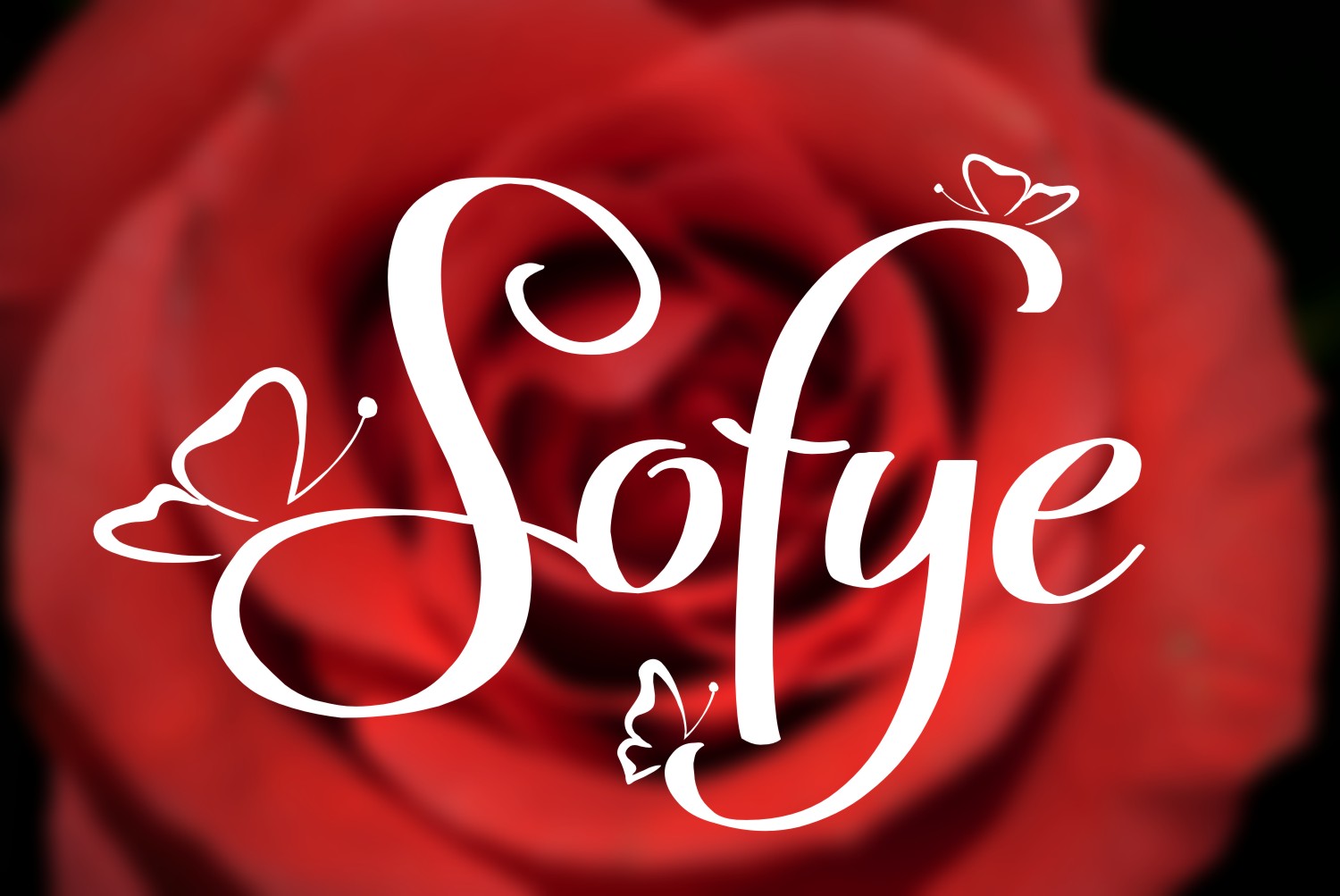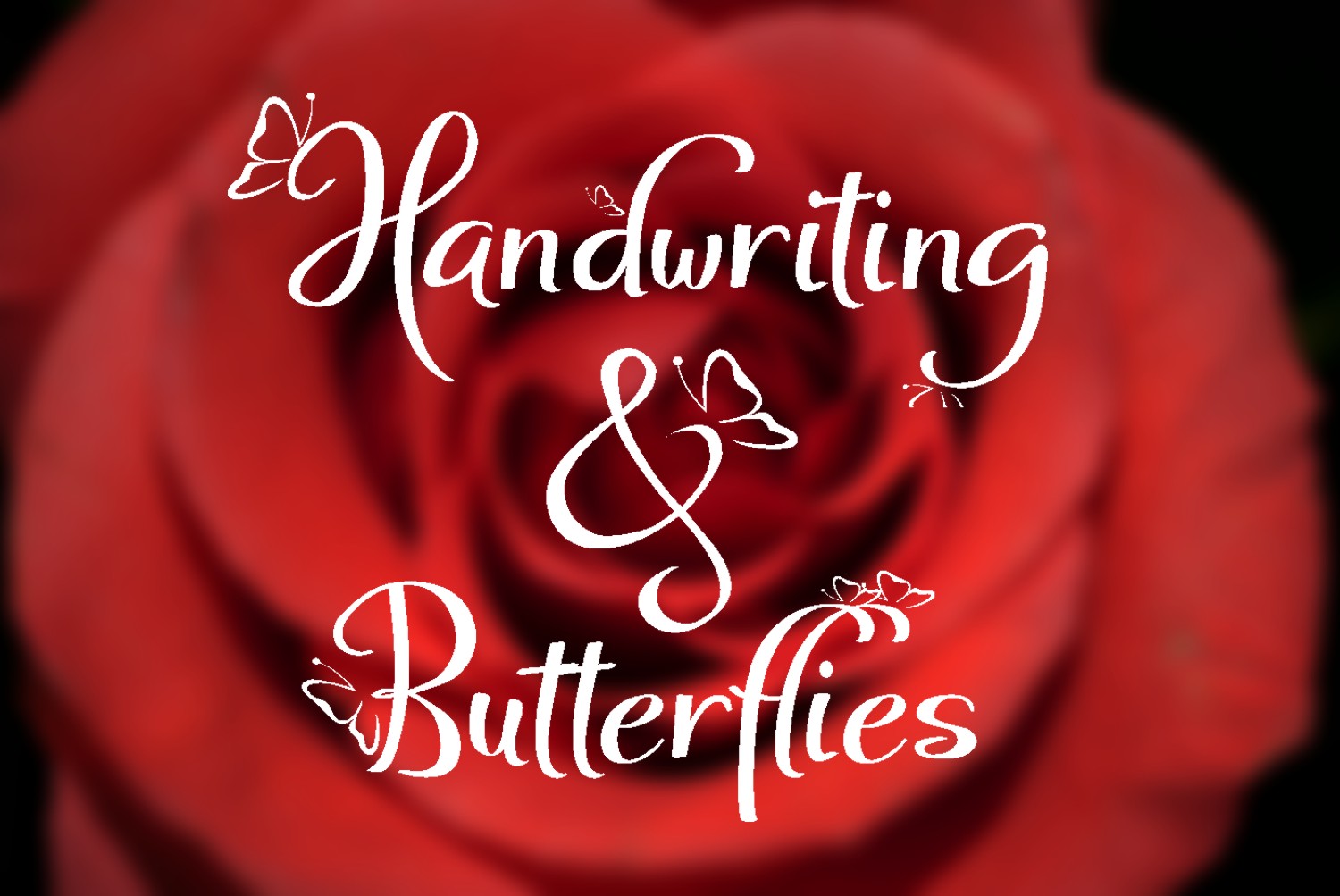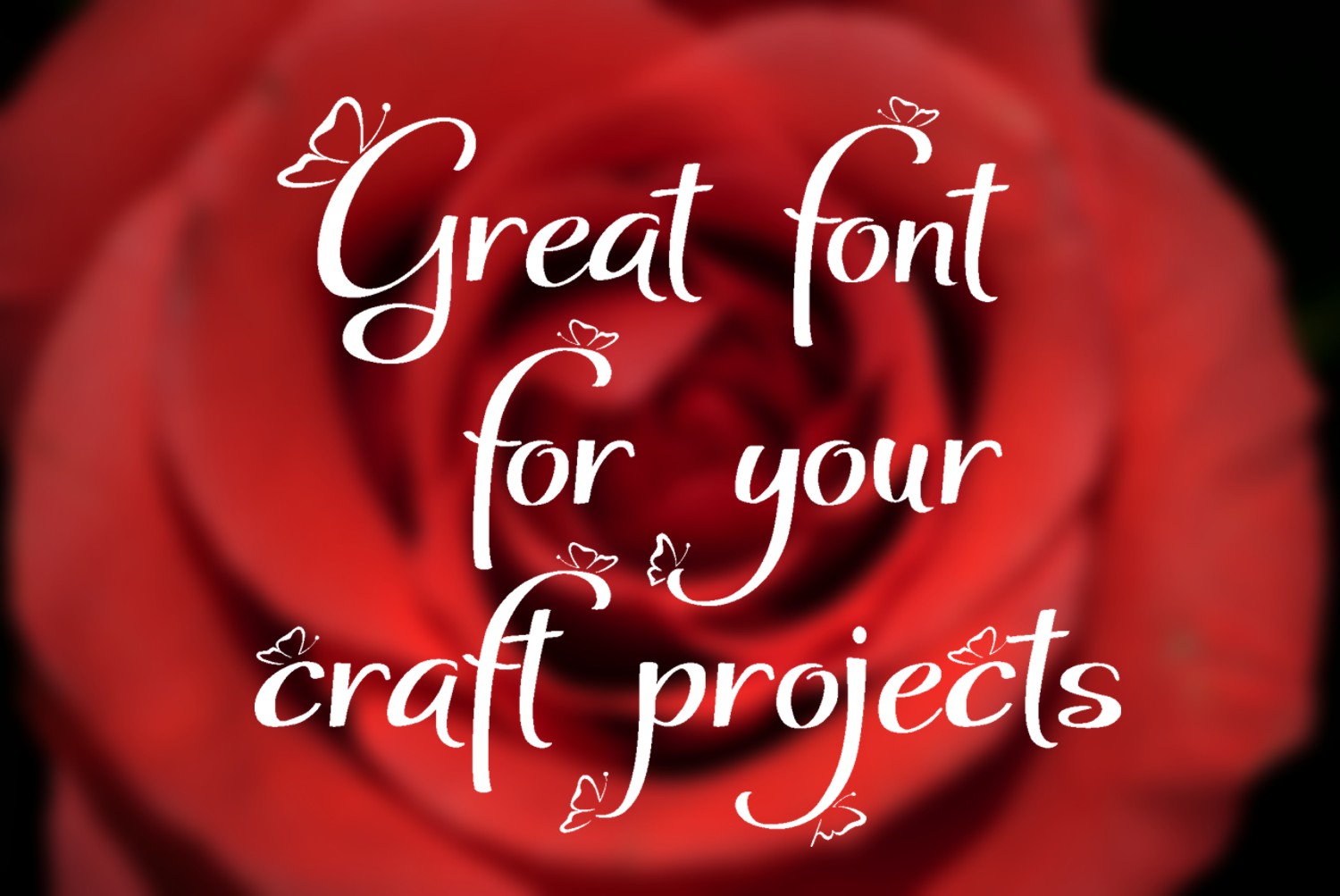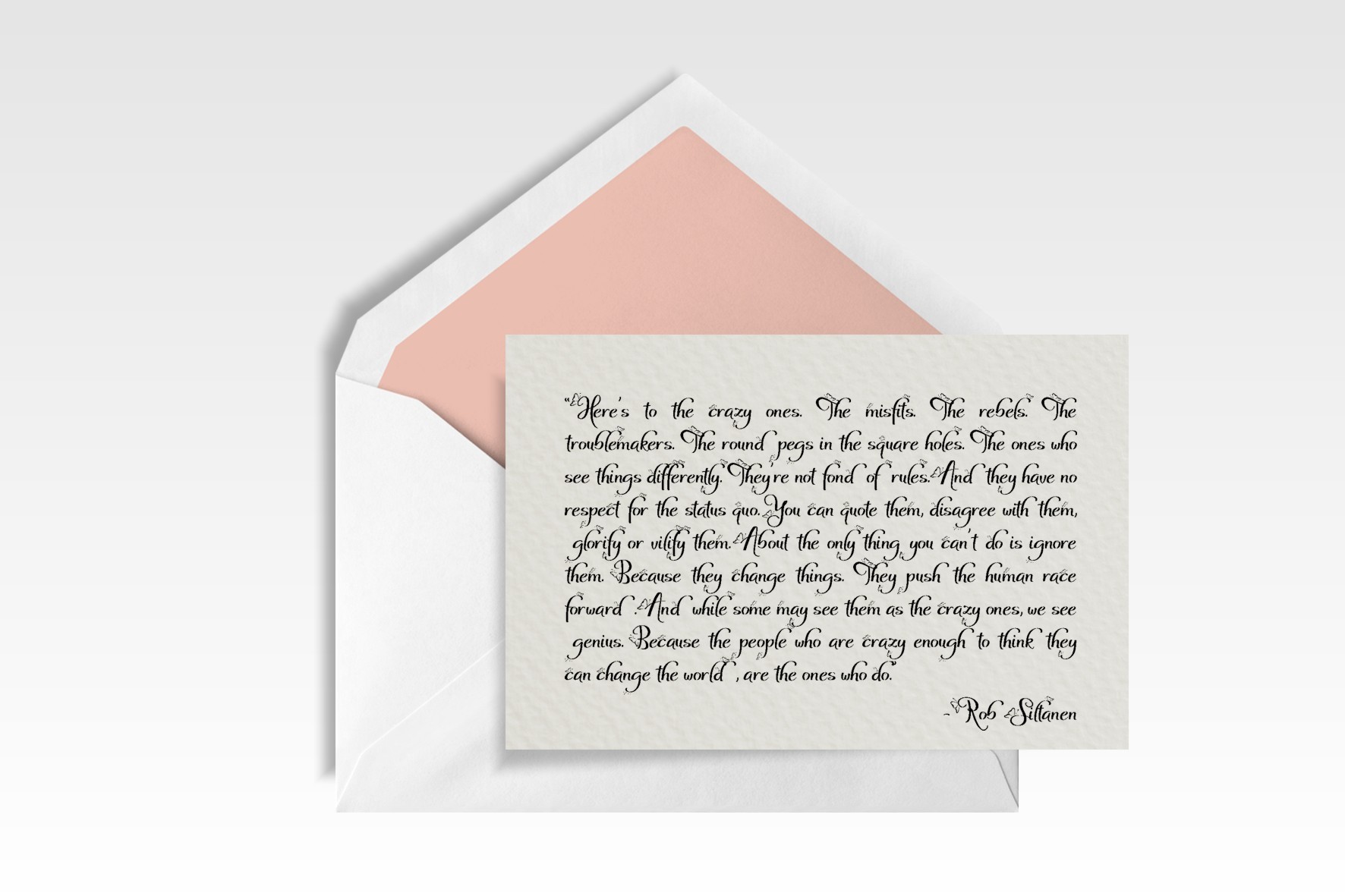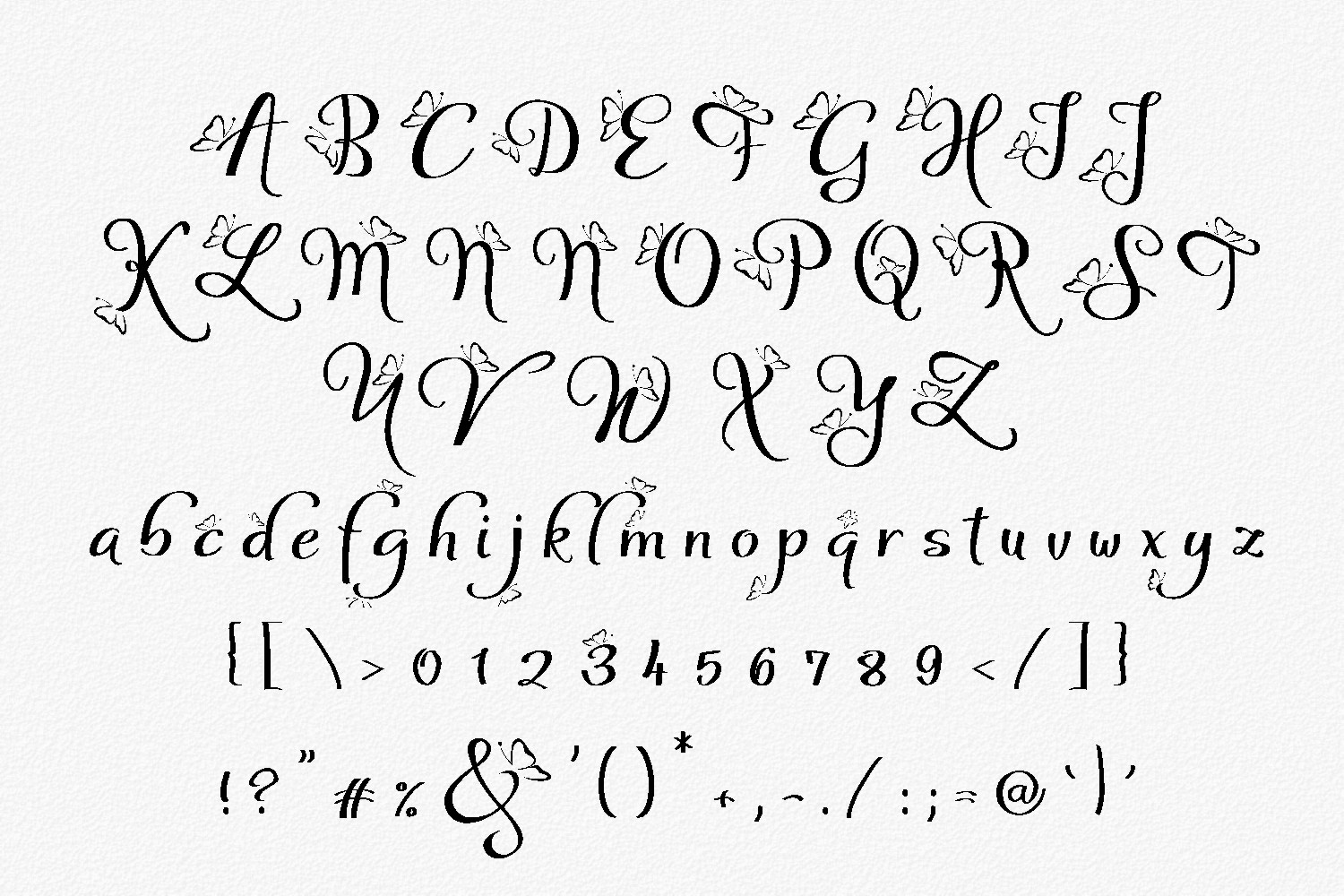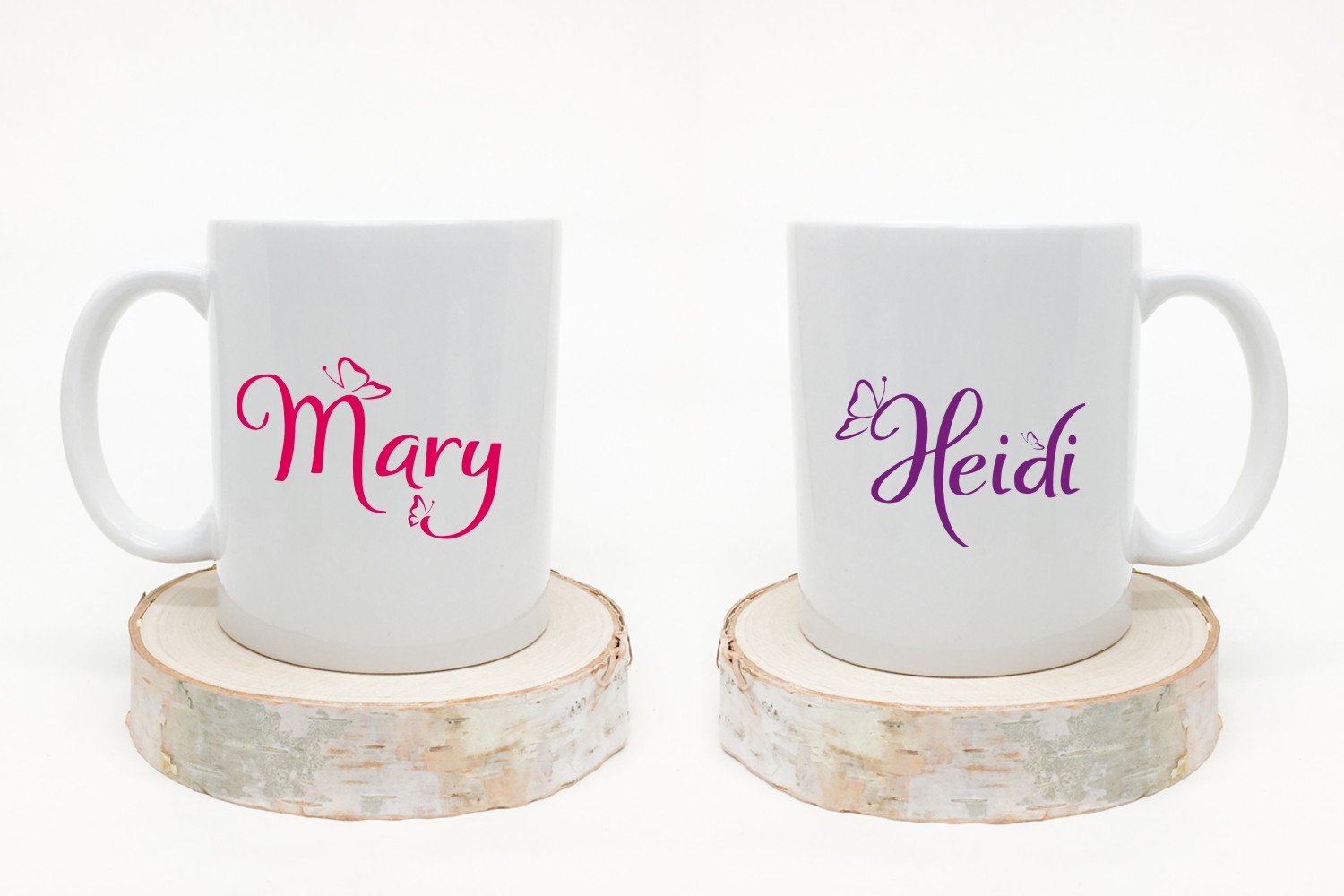
Sofye Font
About Sofye Font
Sofye is a stunning handwritten typeface, both bold and elegant. Capital letters and other select characters are decorated with butterflies to give your typographic designs a unique look and style.